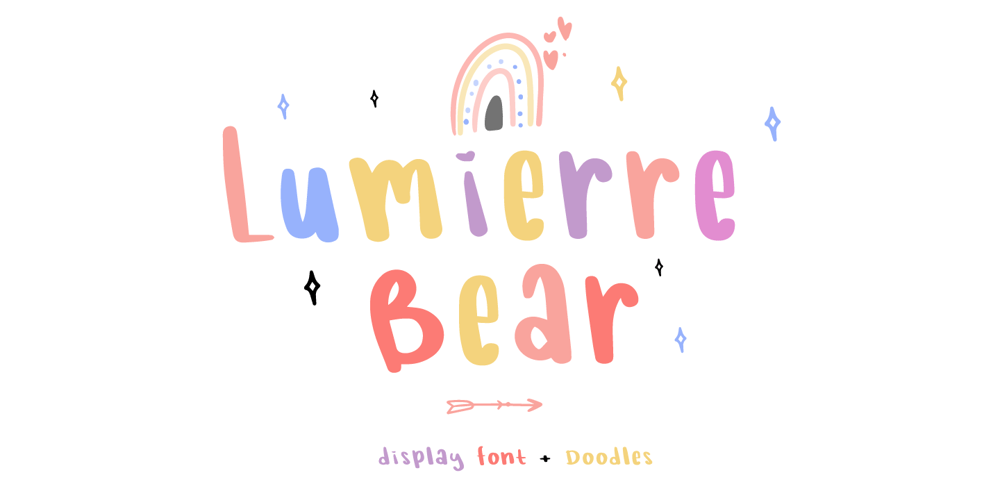
Lumierre Bear
Lumierre Bear font
Lumierre Bear Font Family was designed by Laire Banyu and published by The Ocean Studio. Lumierre Bear contains 2 styles and family package options. Lumierre Bear is playful font family which puts a smile on your projects and will inspire you to create something fun and memorable. It is perfect for headings, flyer, greeting cards, product packaging, book cover, printed quotes, logotype, apparel design, album covers, etc..Includes:– Lumierre Bear OTF– Lumierre Bear Doodles OTFFeatures:– Multilingual Support– PUA Encoded– Numerals and PunctuationThank you for downloading from Ocean Stud.